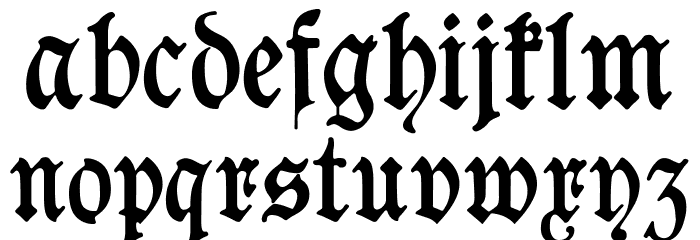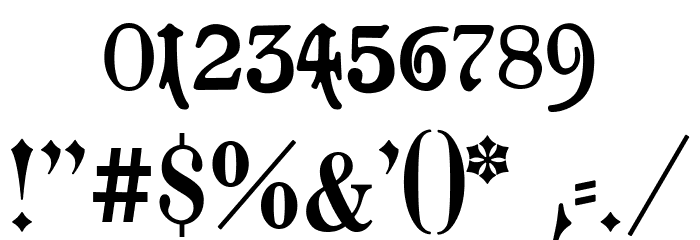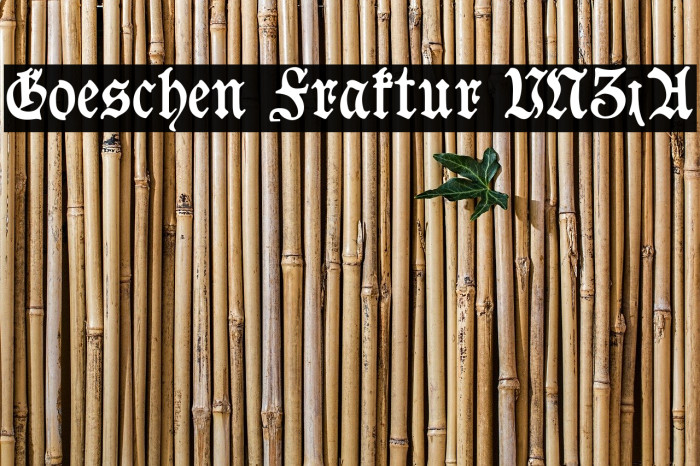
Goeschen Fraktur UNZ1A Font
This font is a classic example of Blackletter style, characterized by its intricate and ornate design. The letters feature sharp, angular lines with dramatic flourishes, creating a sense of historical elegance. The uppercase letters are particularly elaborate, with decorative serifs and unique ligatures that give the font a distinct medieval appearance. The lowercase letters maintain the same level of detail, with consistent stroke widths and a cohesive style that ties the alphabet together. Numbers and special characters are equally stylized, ensuring a uniform look across all text. This font is ideal for projects that require a touch of antiquity and sophistication.
A detailed Blackletter font with ornate, medieval-inspired design.
- Proposed Projects: Ideal for historical documents, invitations, certificates, and branding that requires a vintage or medieval touch.